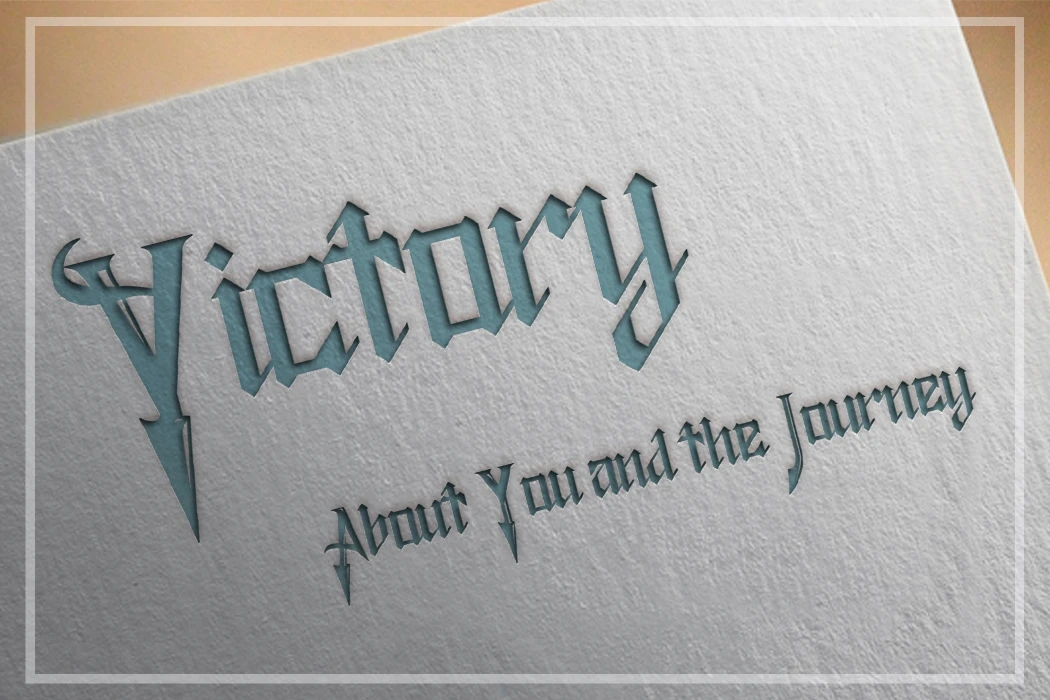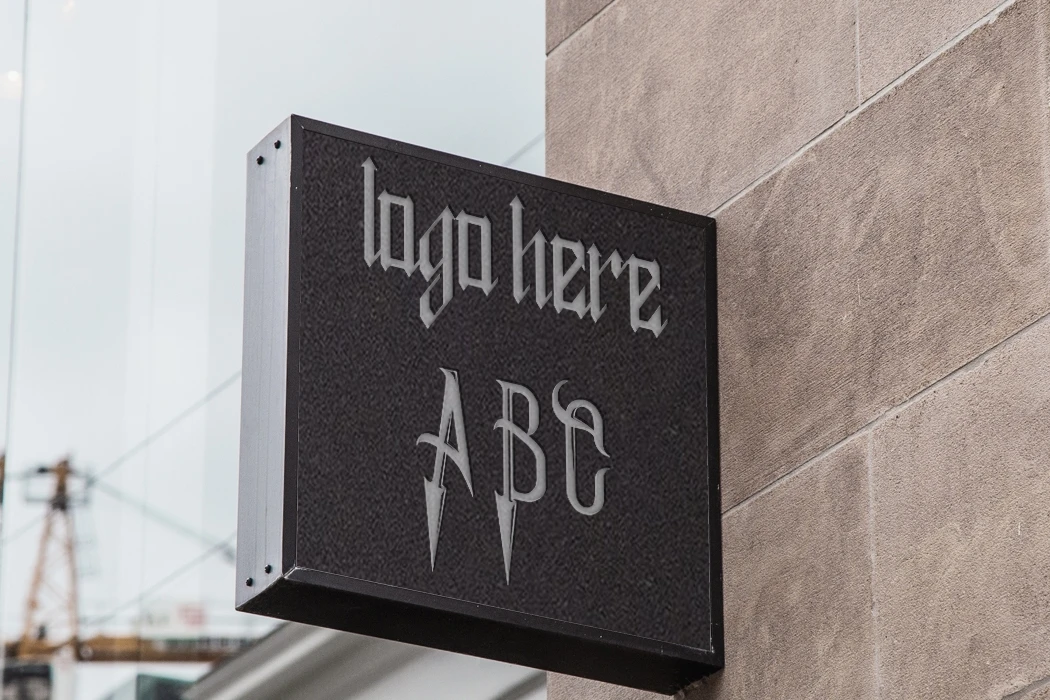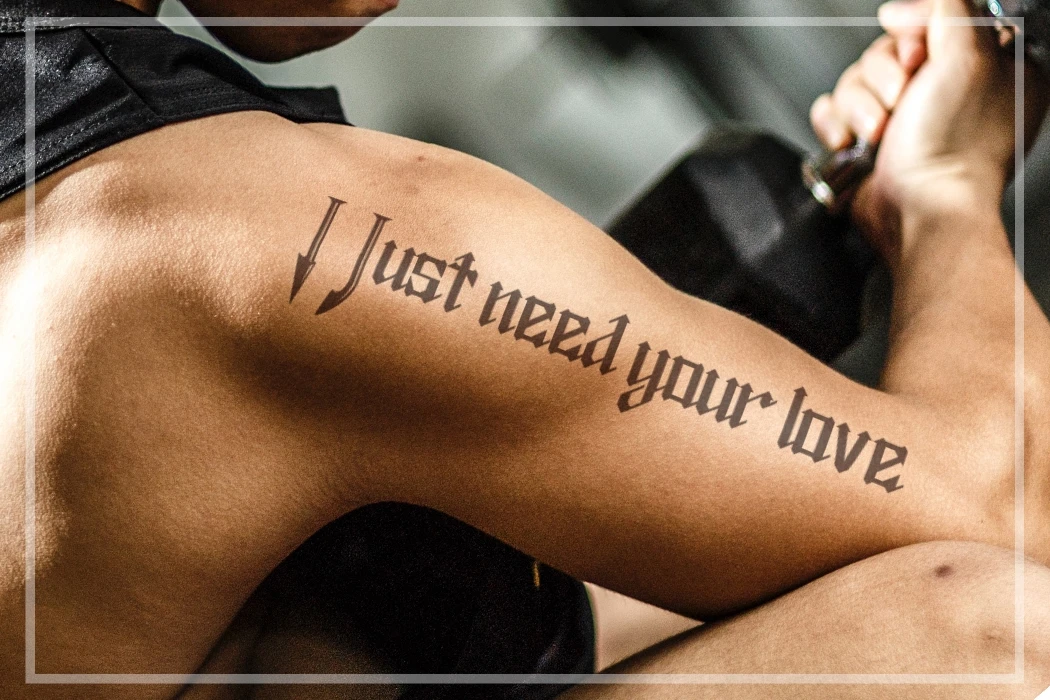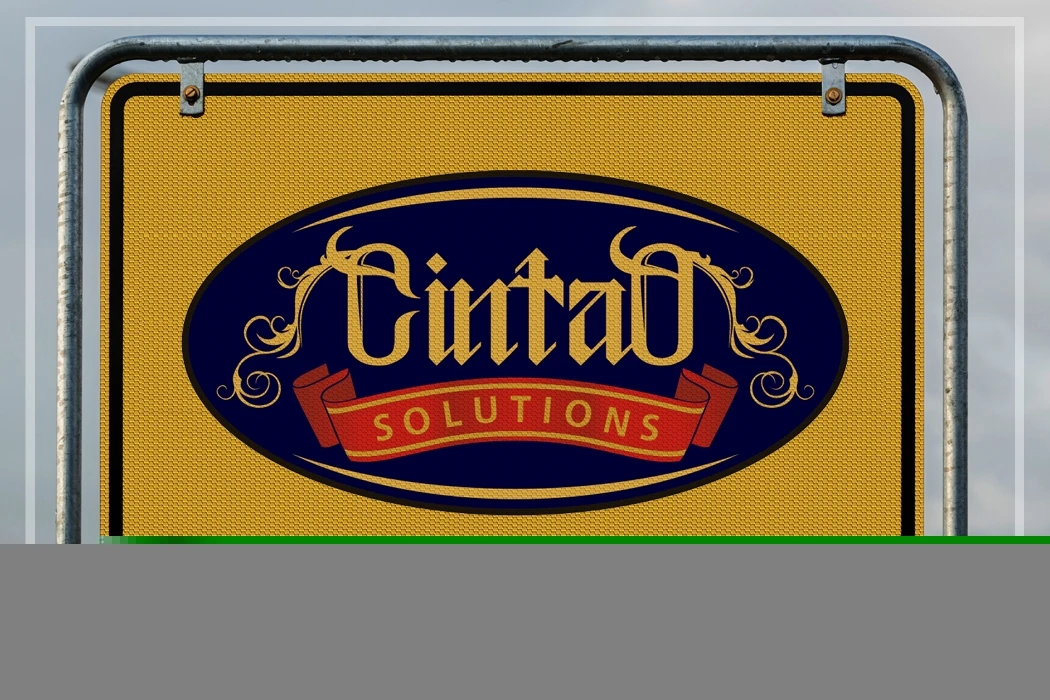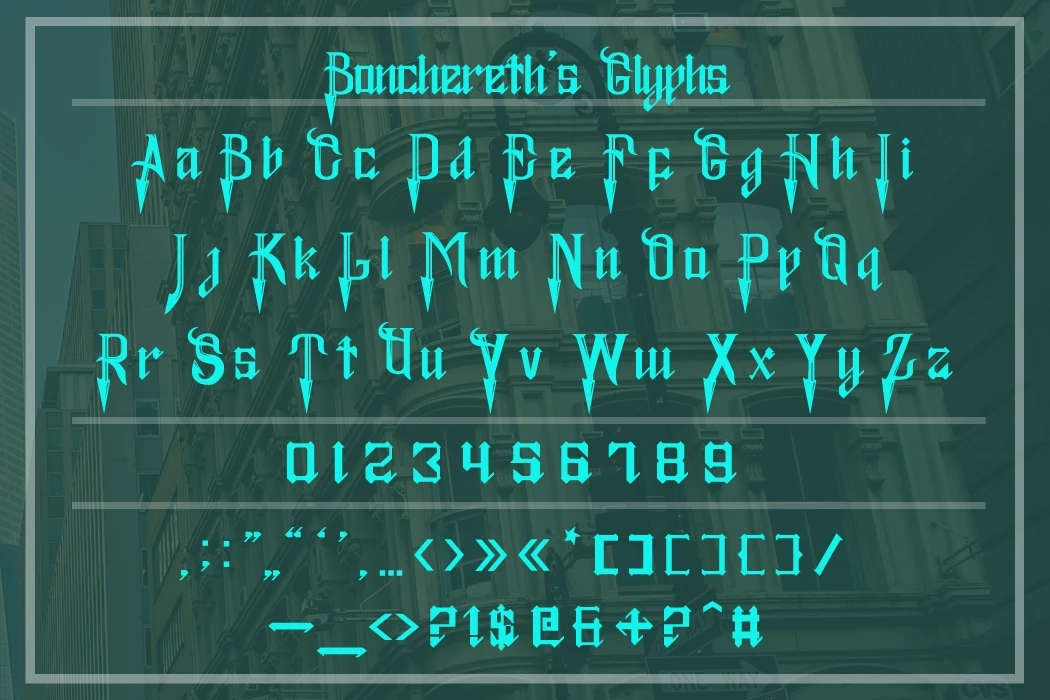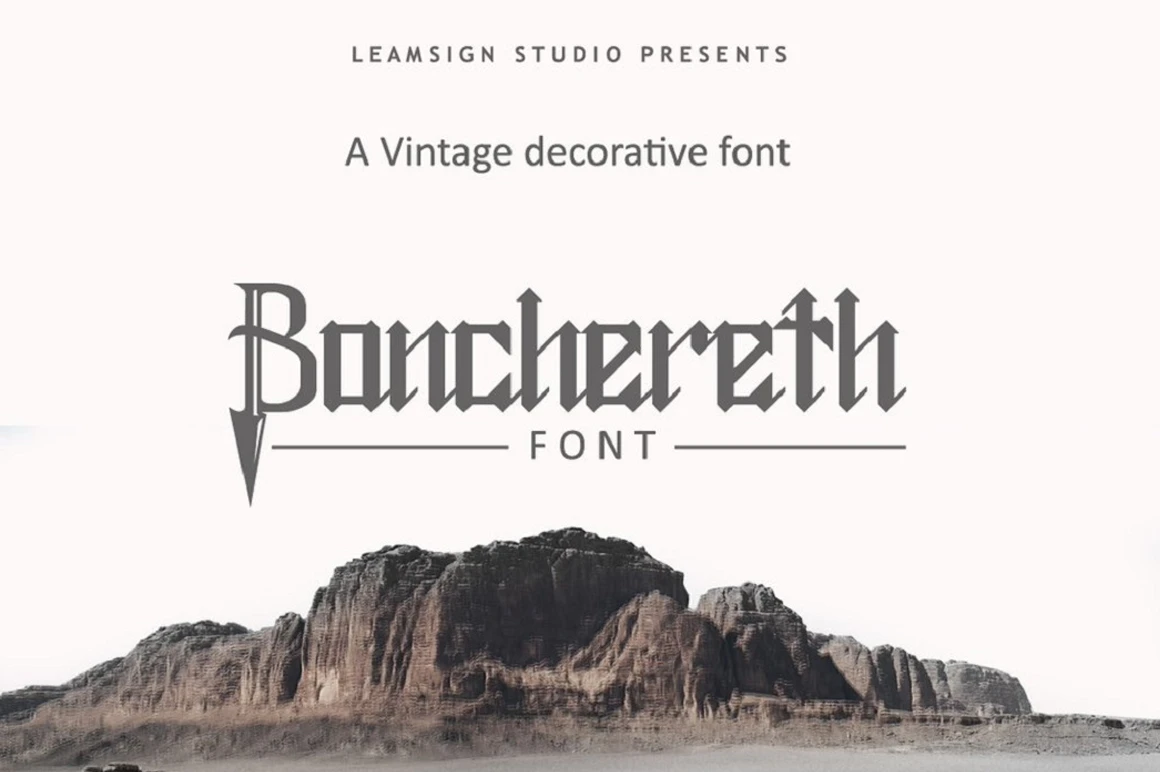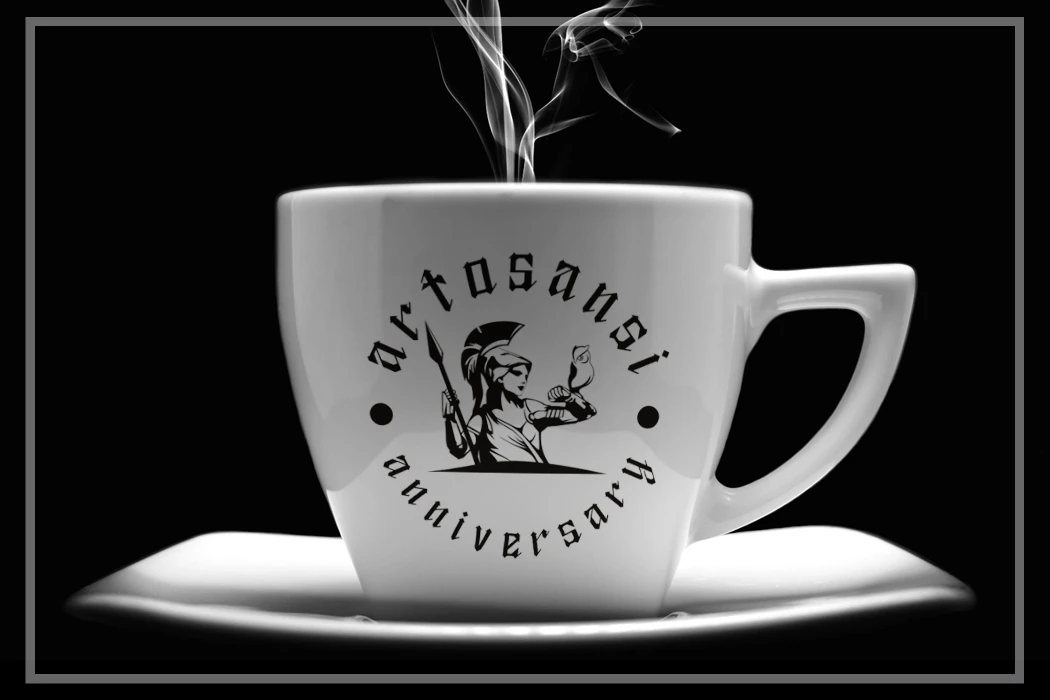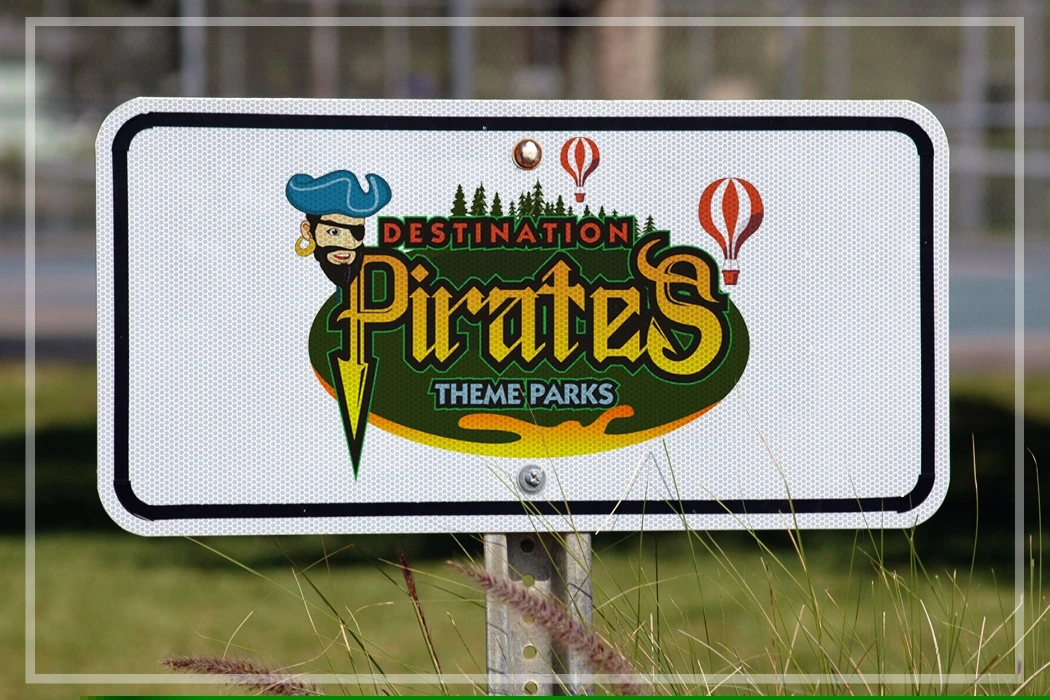
Bonchereth is a unique vintage & ornamental style custom font. Great for your vintage themed designs, logo, headline, letterheads, etc.
- Uppercase A-Z
- Lowercase a-z
- Numbers 0-9
- Punctuation